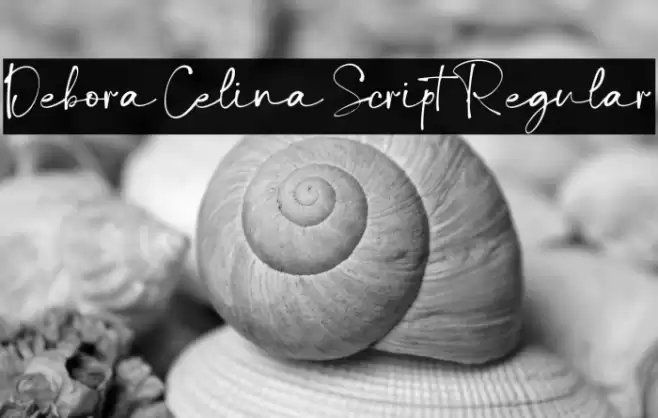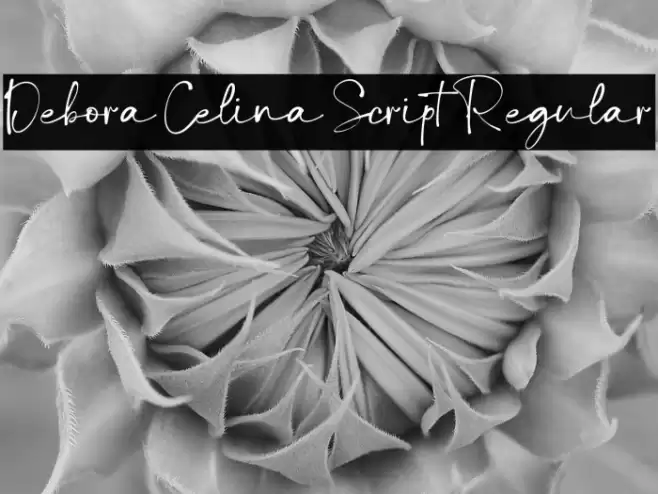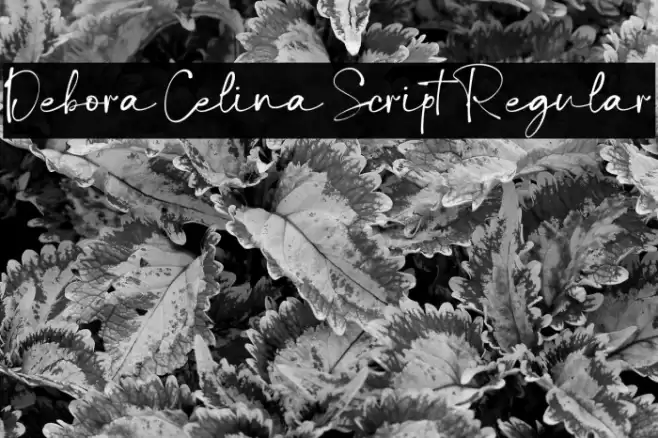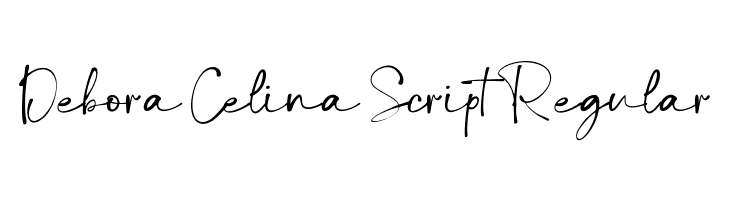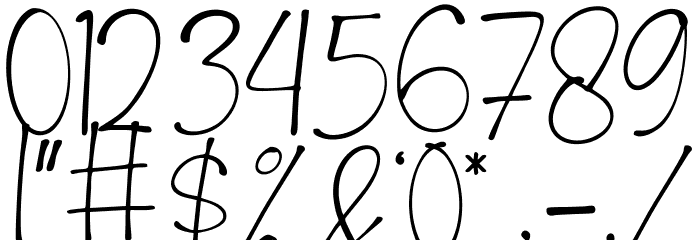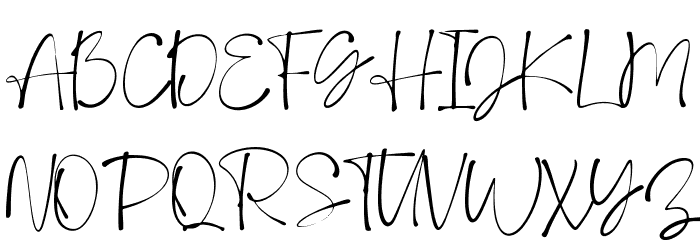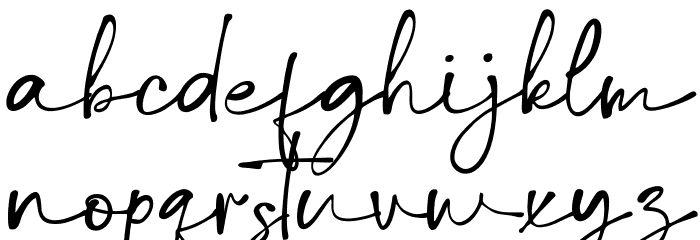
Debora Celina Script Regular Font
Debora Celina Script Regular Description
A lively, casual handwritten script with tall, narrow letterforms and fluid, connected strokes, evoking a personal and expressive feel. The characters have a playful, slightly irregular baseline and varying stroke thickness, giving an authentic handwritten appearance.
Playful, expressive handwritten script with tall, narrow forms from Uncategorized fonts.
- Font: Debora Celina Script Regular
- Proposed Projects: Greeting cards, invitations, personal branding, social media graphics, quotes, creative posters.
- Width: Condensed
- Overall Style: Decorative, Casual, Modern
- Use Case: Logos, Headlines, Invitations, Social media graphics